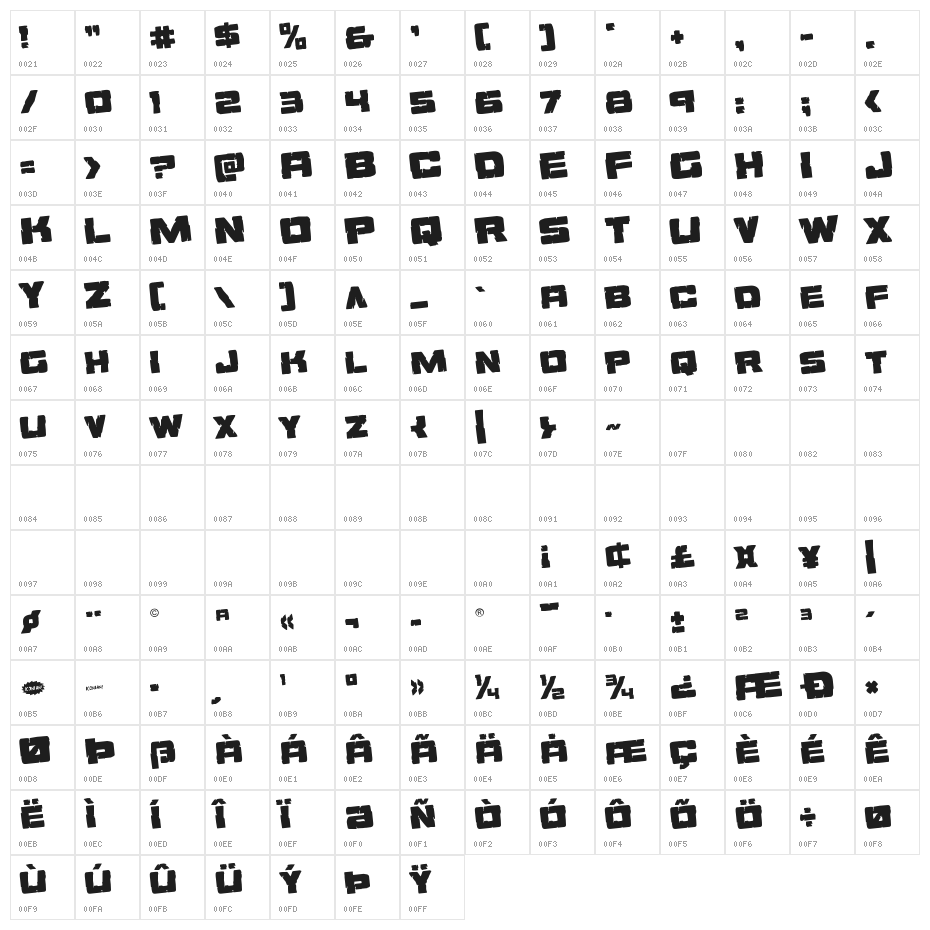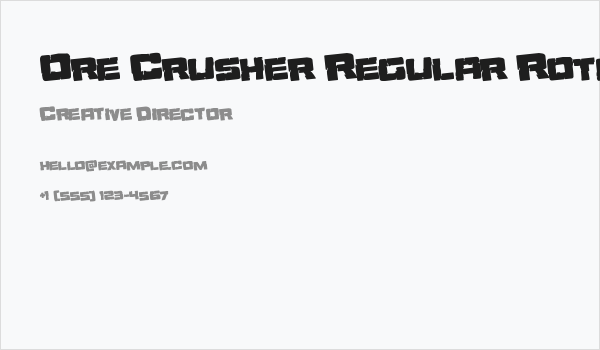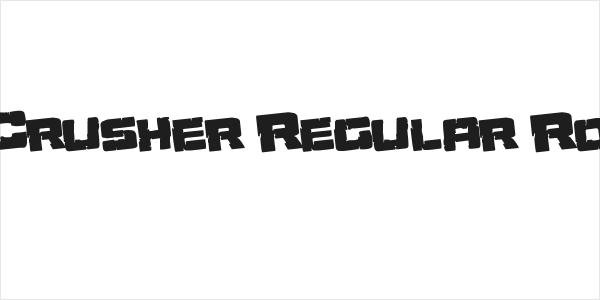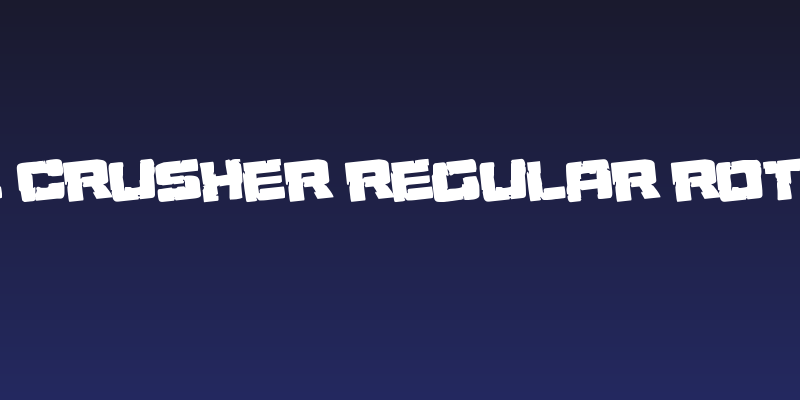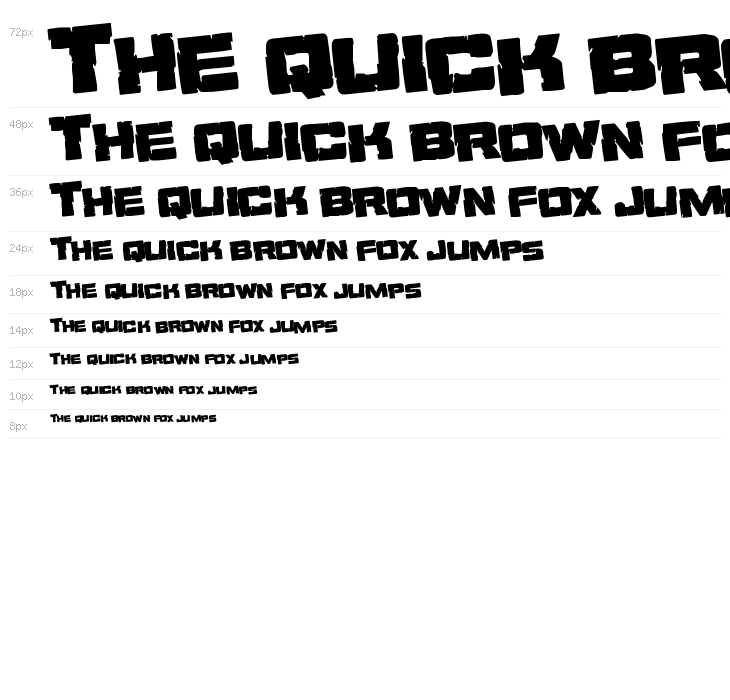
Ore Crusher Regular Rotate Font
Ore Crusher Regular Rotate Description
This font features a bold and rugged design, characterized by its heavy, block-like letters with a distressed texture. The characters have a slightly irregular, chipped appearance, giving them a raw, industrial feel. The uppercase and lowercase letters maintain a consistent style, with thick strokes and a strong presence. The numbers and special characters follow the same design principles, ensuring a cohesive look across all glyphs. This font's unique style makes it stand out, ideal for projects that require a bold, impactful statement.
| Overall Style | Industrial, Rugged |
| Proposed Projects | Ideal for posters, logos, branding, and any design needing a strong, industrial aesthetic. |